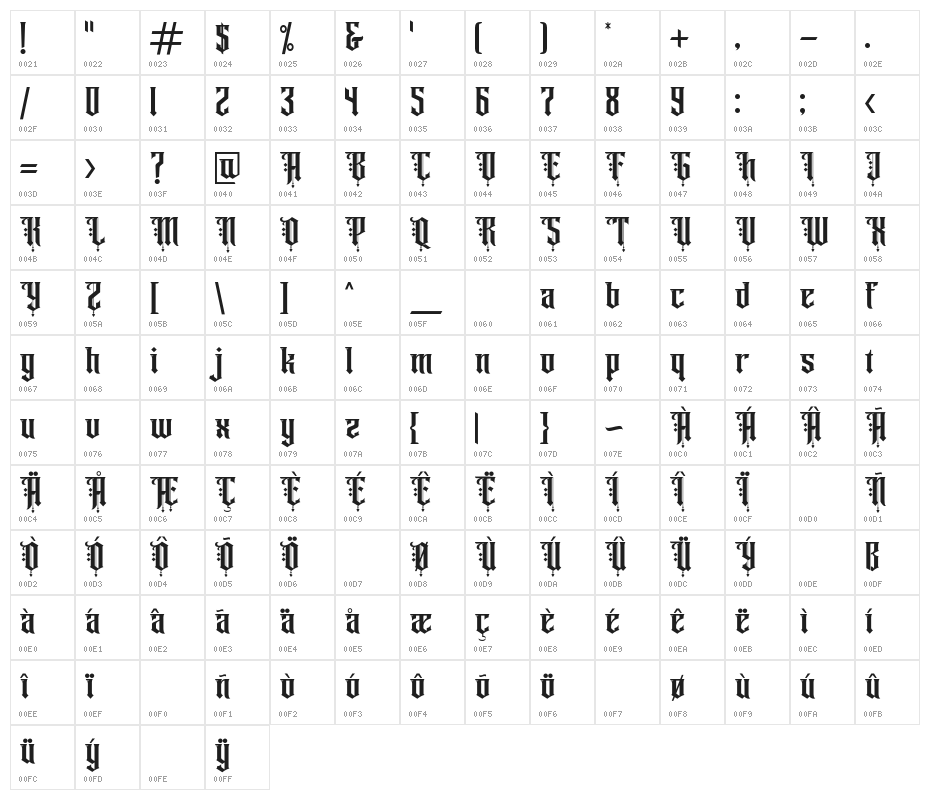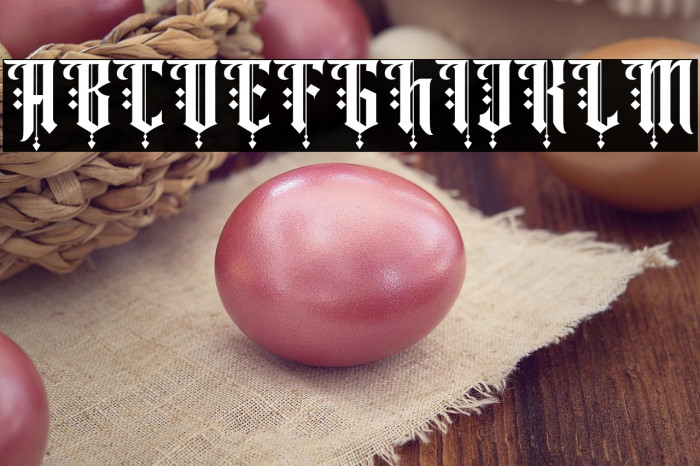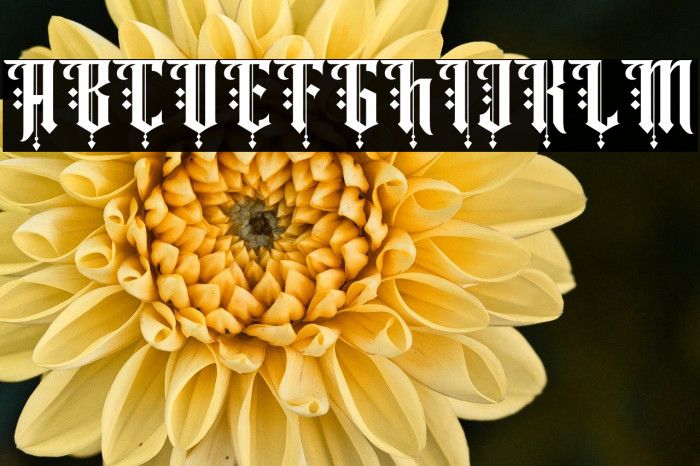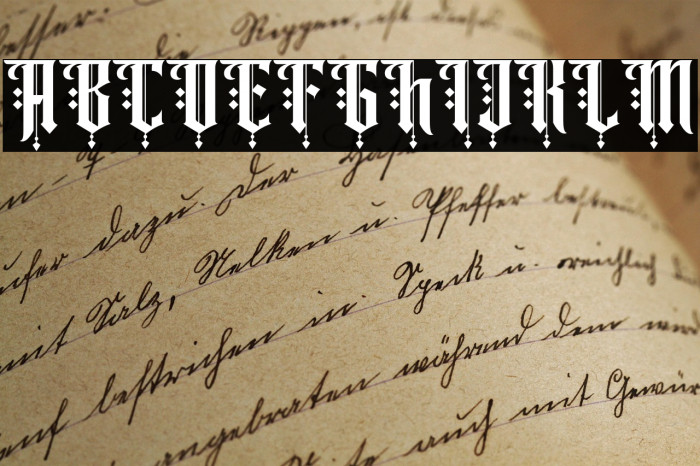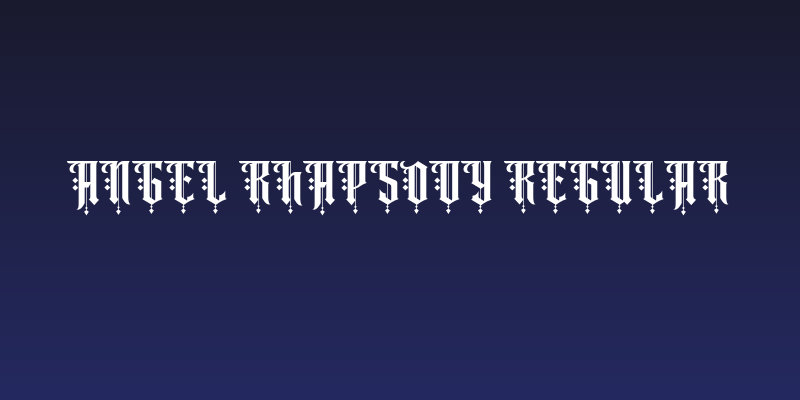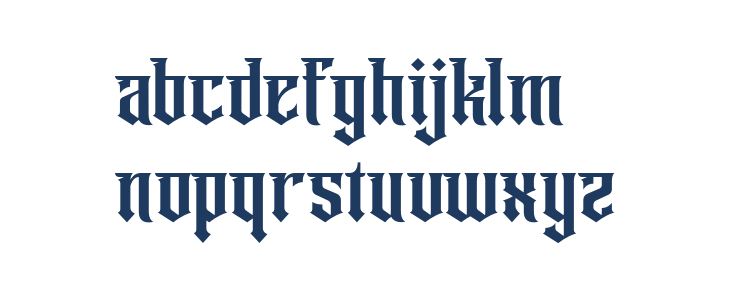
Angel rhapsody Regular Font
Angel rhapsody Regular Description
This font exhibits a striking and bold blackletter style, characterized by its sharp, angular lines and intricate detailing. The uppercase letters are adorned with decorative elements that enhance their gothic appearance, while the lowercase letters maintain a consistent, robust structure. The numerals and special characters follow the same intricate design, making the font cohesive and visually impactful. Its historical and dramatic flair makes it suitable for projects that require a touch of elegance and tradition.
| Proposed Projects | Ideal for use in vintage-themed posters, book covers, branding for luxury products, or any design that seeks to evoke a sense of history and sophistication. |